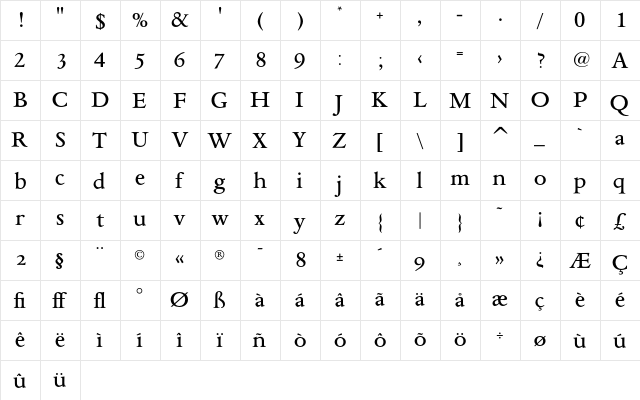
AsdanteMedium Regular
Design Context for AsdanteMedium Typeface
AsdanteMedium is a composed and adaptable typeface that performs quietly and consistently across a wide range of design contexts.